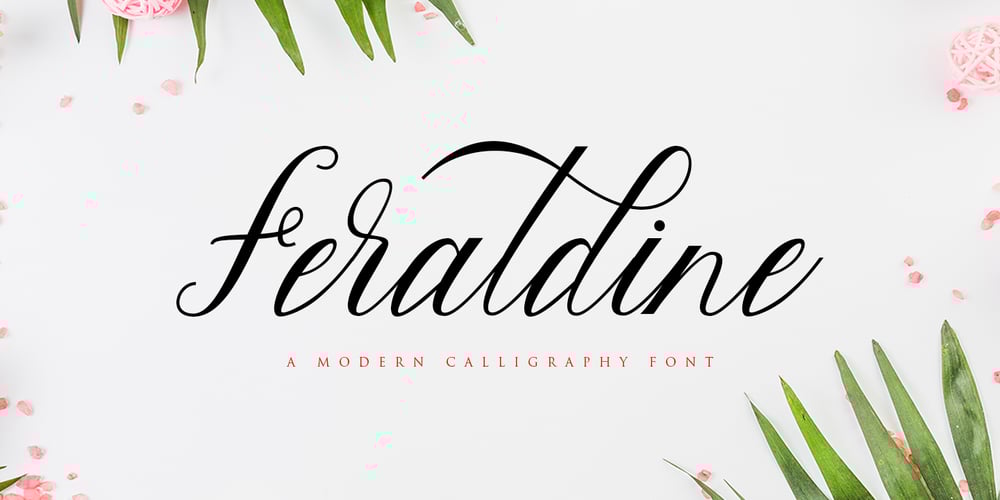
Feraldine Script Font Family was designed by khaidir and published by Gatype. Feraldine Script contains 1 styles and family package options. Feraldine Script is sweet calligraphy font. This font is casual and pretty with swashes. Can be used for various purposes such as logo, product packaging, wedding invitations, branding, headlines, signage, labels, signature, book covers, posters, quotes and more. Feraldine Script features OpenType stylistic alternates, ligatures and International support for most Western Languages is included. To enable the OpenType Stylistic alternates, you need a program that supports OpenType features such as Adobe Illustrator CS, Adobe Indesign & CorelDraw X6-X7, Microsoft Word 2010 or later versions. How to access all alternative characters using Adobe Illustrator: https://www.youtube.com/watch?v=XzwjMkbB-wQ Feraldine Script is coded with PUA Unicode, which allows full access to all the extra characters without having special designing software. Mac users can use Font Book , and Windows users can use Character Map to view and copy any of the extra characters to paste into your favorite text editor/app. How to access all alternative characters, using Windows Character Map with Photoshop: https://www.youtube.com/watch?v=Go9vacoYmBw If you need help or have any questions, please let me know. I’m happy to help.